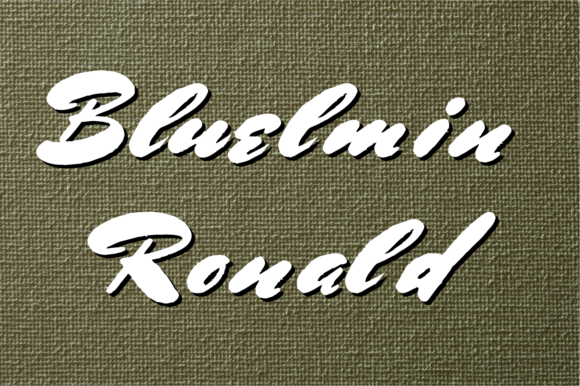
The Bluelmin Ronald Font: A Bold and Beautiful Handwritten Addition to Your Design
I’ll never forget the time I was working on a project for a client who wanted a bold, eye-catching font to make their brand stand out. I scoured the internet for hours, trying out font after font, but nothing seemed quite right. That was until I stumbled upon the Bluelmin Ronald font. This naive bold handwritten font has a great readability and will add a bold, striking touch to your design. In this article, I’ll share my experience with Bluelmin Ronald, its features, and how to make the most of it in your designs.
An Honest Review of Bluelmin Ronald
• ✨ Bold and striking: Bluelmin Ronald is perfect for making a statement in your designs. Its bold lines and playful feel make it perfect for headings, titles, and emphasis text.
• ✅ Great readability: Despite its bold nature, Bluelmin Ronald remains highly readable, even at smaller font sizes.
• 🎉 Versatile: This font is suitable for a wide range of design projects, from branding and advertising to packaging and digital media.
While Bluelmin Ronald is an excellent font, it’s not without its quirks. Here are a few things to keep in mind:
• 🤔 Limited suitability for body text: Due to its bold nature, Bluelmin Ronald may not be the best choice for large blocks of body text. It’s better suited for headings and emphasis text.
• ⚠️ Some letter combinations may appear awkward: As with any font, some letter combinations may not appear as harmonious as others. Be sure to test the font with your specific text to ensure the best results.
Bluelmin Ronald was designed with the intention of creating a bold, eye-catching font that’s perfect for making a statement. Its creator was inspired by traditional handwritten fonts, but with a modern twist. The result is a font that’s both playful and professional.
Q: What type of projects is Bluelmin Ronald best suited for?
A: Bluelmin Ronald is perfect for projects that require a bold, eye-catching font, such as branding, advertising, packaging, and digital media.
Q: Can I use Bluelmin Ronald for body text?
A: While Bluelmin Ronald is highly readable, it’s better suited for headings and emphasis text. For large blocks of body text, a lighter font may be more suitable.
Q: Is Bluelmin Ronald suitable for use in digital media?
A: Yes, Bluelmin Ronald is perfect for use in digital media, including websites, social media graphics, and email marketing campaigns.